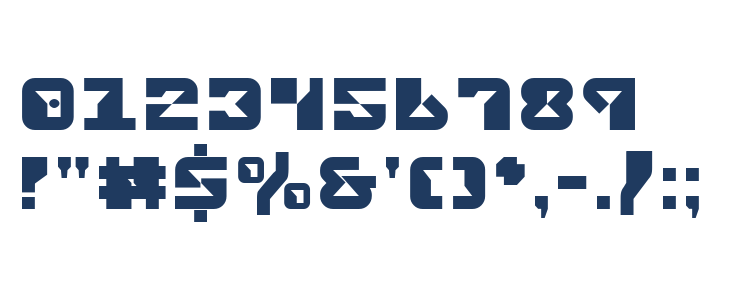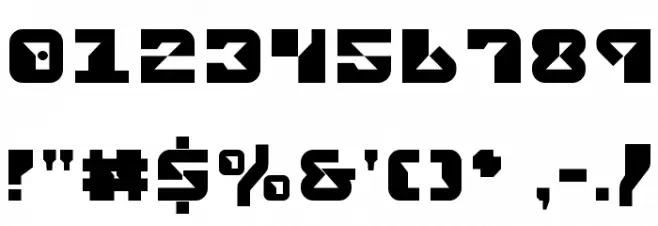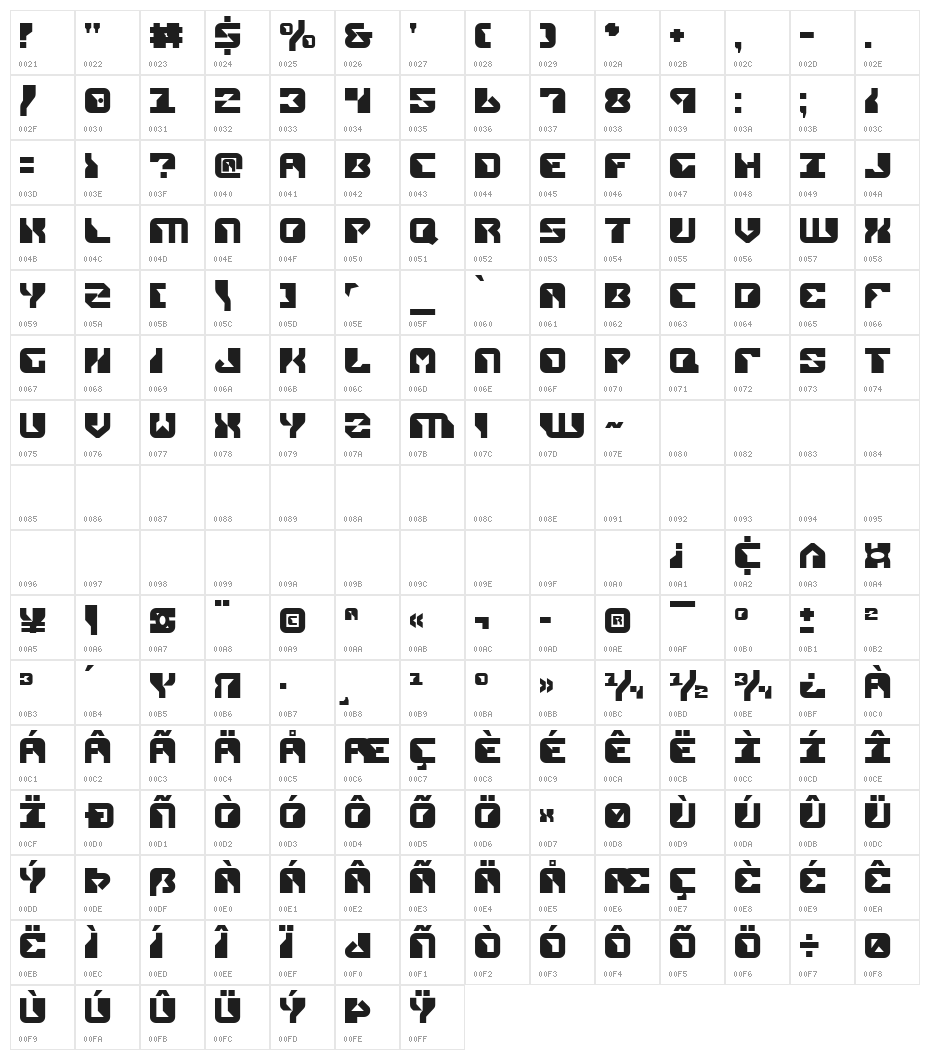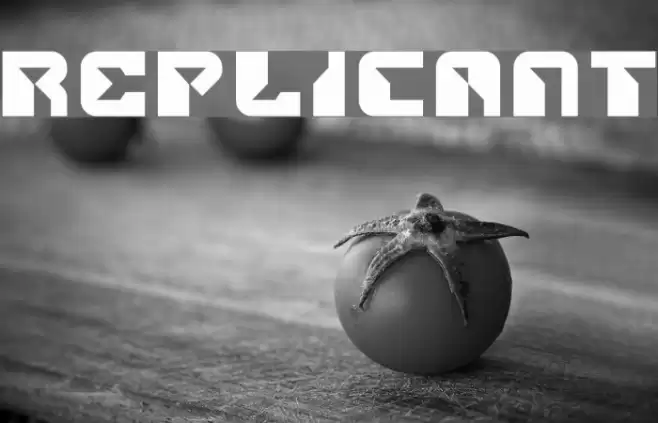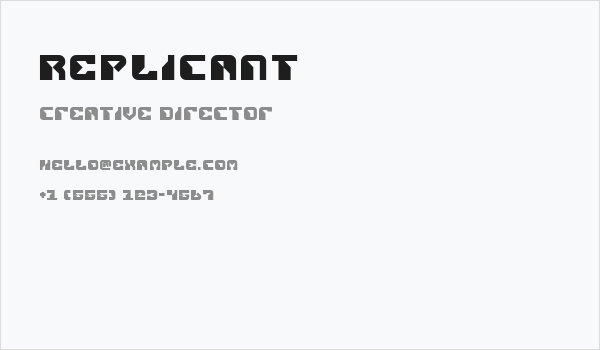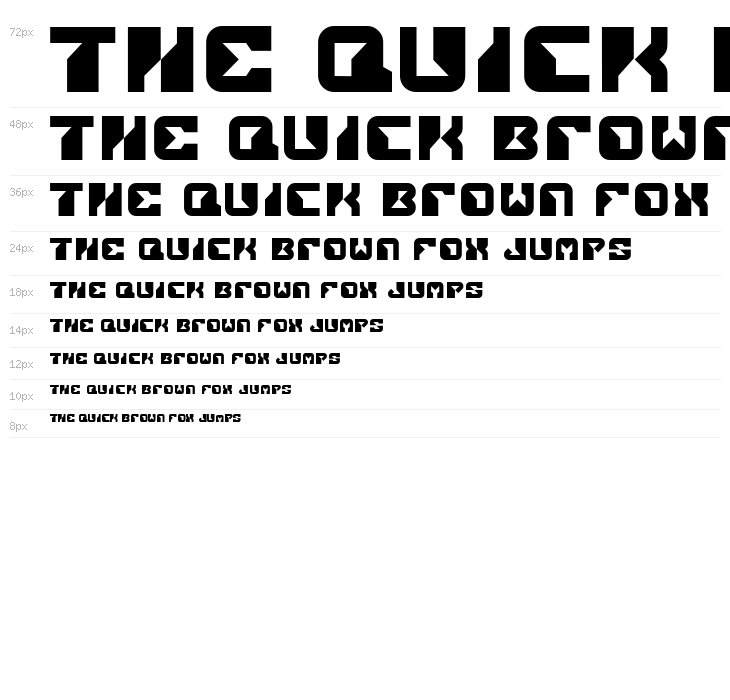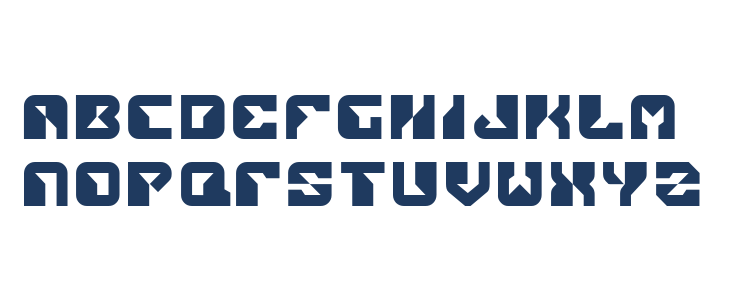
Replicant Font
Replicant Description
This font features a bold and futuristic design with geometric shapes and sharp angles. The characters are constructed with a mix of straight lines and diagonal cuts, giving it a unique and edgy appearance. The uppercase and lowercase letters maintain a consistent style, with the lowercase being slightly smaller but equally bold. Numbers and special characters follow the same design principles, ensuring uniformity across all glyphs. The font's distinct style makes it stand out, suitable for projects that require a modern and dynamic look.
| Proposed Projects | Ideal for sci-fi themed designs, tech branding, video game titles, and futuristic posters. |